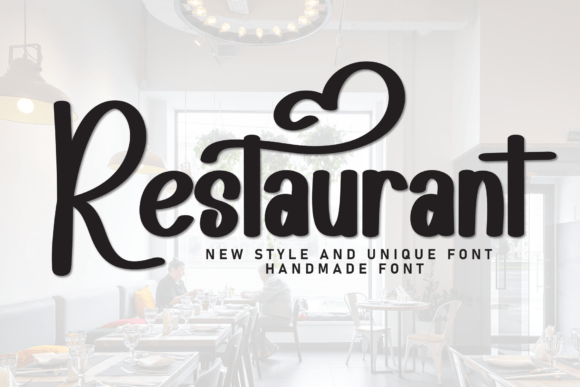
Restaurant Font: The Perfect Choice for Friendly and Approachable Designs
The world of typography is vast and diverse, with countless font styles to choose from, each with its unique character and personality. When it comes to creating a friendly and approachable feel in design, the Restaurant font stands out as an excellent choice. This casual handwritten font is designed to bring warmth, clarity, and a personal touch to any project, making it perfect for notes, educational materials, and creative endeavors.
The Characteristics of Restaurant Font
Restaurant is a carefully crafted typeface that embodies the essence of a casual, handwritten style. Its smooth strokes and relaxed letterforms work together to create a natural, authentic look that resonates with audiences. The font’s design is characterized by:
- Smooth Strokes: The font features smooth, flowing strokes that give it a fluid and organic feel.
- Relaxed Letterforms: The letters are designed with a relaxed, casual approach, making the font perfect for creating a friendly and approachable atmosphere.
- Natural Look: The combination of smooth strokes and relaxed letterforms creates a natural, authentic look that is perfect for a wide range of design applications.
The Benefits of Using Restaurant Font
The Restaurant font offers a range of benefits that make it an excellent choice for designers and creatives. Some of the key advantages of using this font include:
- Warmth and Personality: The font adds a touch of warmth and personality to any design, making it perfect for projects that require a friendly and approachable feel.
- Clarity and Legibility: The font’s clear and legible design ensures that your message is communicated effectively, making it ideal for notes, educational materials, and other written content.
- Versatility: The Restaurant font is versatile and can be used in a wide range of design applications, from creative projects to commercial materials.
Perfect for Notes and Educational Materials
The Restaurant font is particularly well-suited for notes and educational materials. Its clear and legible design makes it easy to read, while its friendly and approachable feel creates a welcoming atmosphere for learners. Whether you’re creating:
- Notes and Handouts: The font is perfect for creating notes and handouts that are easy to read and understand.
- Educational Materials: The font’s friendly and approachable feel makes it ideal for educational materials, such as textbooks, workbooks, and study guides.
- Workbooks and Worksheets: The font’s clear and legible design makes it perfect for workbooks and worksheets that require a friendly and approachable feel.
Ideal for Creative Projects
The Restaurant font is also perfect for creative projects that require a friendly and approachable feel. Whether you’re working on:
- Branding and Packaging: The font’s unique character and personality make it ideal for branding and packaging projects that require a friendly and approachable feel.
- Posters and Flyers: The font’s clear and legible design makes it perfect for posters and flyers that need to communicate a message effectively.
- Digital Media: The font’s versatility makes it suitable for a wide range of digital media, including social media graphics, blog posts, and website content.
How to Use Restaurant Font Effectively
To get the most out of the Restaurant font, here are some tips for using it effectively:
- Pair it with Other Fonts: The Restaurant font can be paired with other fonts to create a unique and visually appealing combination.
- Use it in Headings and Body Text: The font’s clear and legible design makes it suitable for both headings and body text.
- Experiment with Colors and Textures: The font’s versatility allows you to experiment with different colors and textures to create a unique and eye-catching design.
In conclusion, the Restaurant font is a versatile and effective typeface that can add a friendly and approachable feel to any design. Its smooth strokes, relaxed letterforms, and natural look make it perfect for a wide range of design applications, from notes and educational materials to creative projects and commercial materials. By understanding the characteristics and benefits of the Restaurant font, designers and creatives can use it to create effective and visually appealing designs that communicate their message with warmth, clarity, and personality.